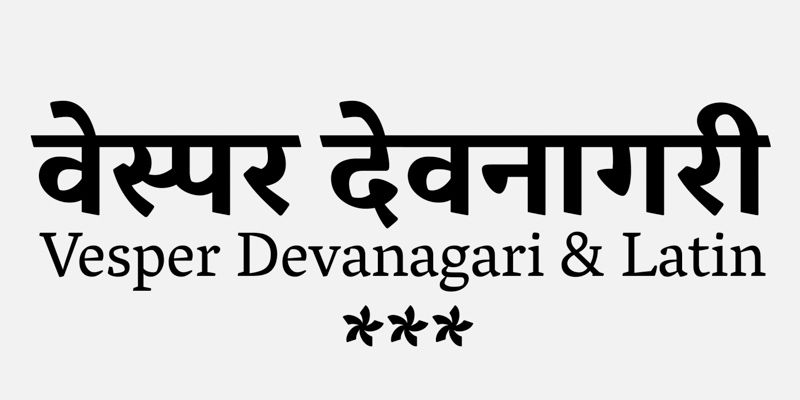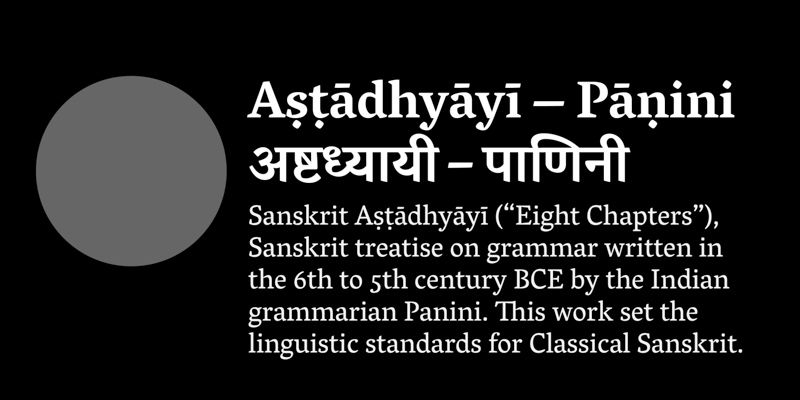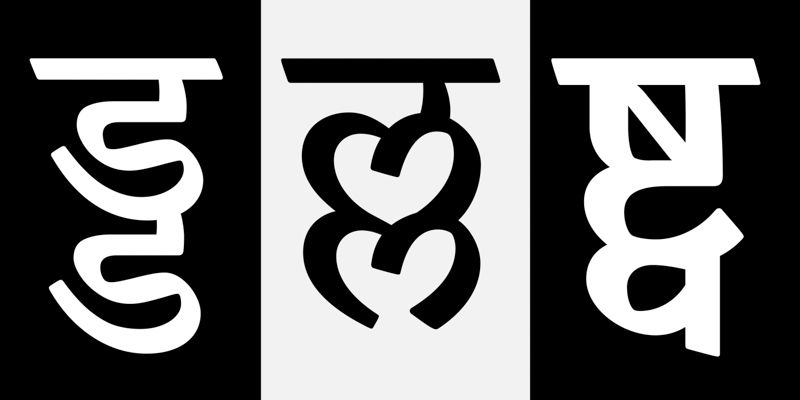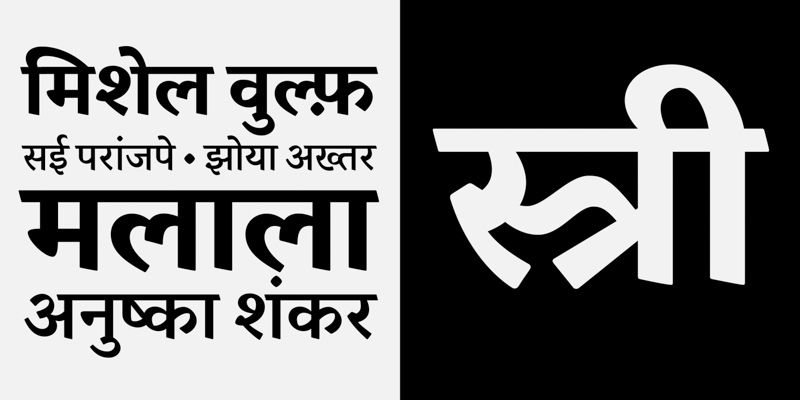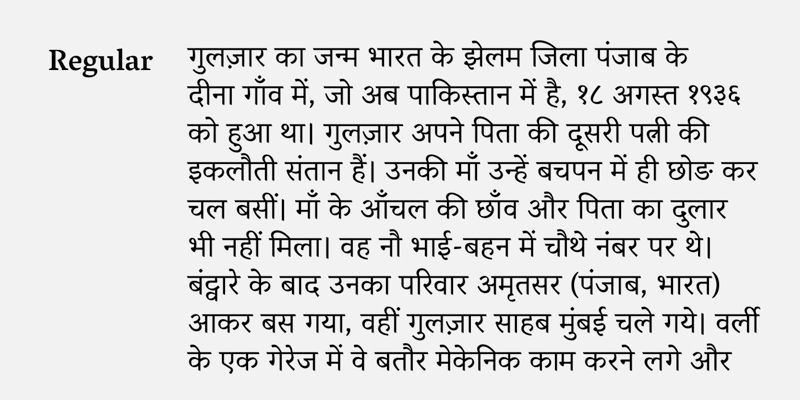
Vesper Devanagari is designed for effortless reading comfort with a subtle touch of personality. With a classical foundation and modern execution, this typeface quietly enhances the reading experience without calling attention to itself, making it ideal for extended text settings where legibility is paramount.
The family consists of four weights, all featuring wide language support and advanced typographic features for complex typesetting. Vesper’s slightly rounded corners give text a discrete softness that becomes more pronounced at larger sizes, while its balanced proportions ensure optimal readability across various contexts and applications.